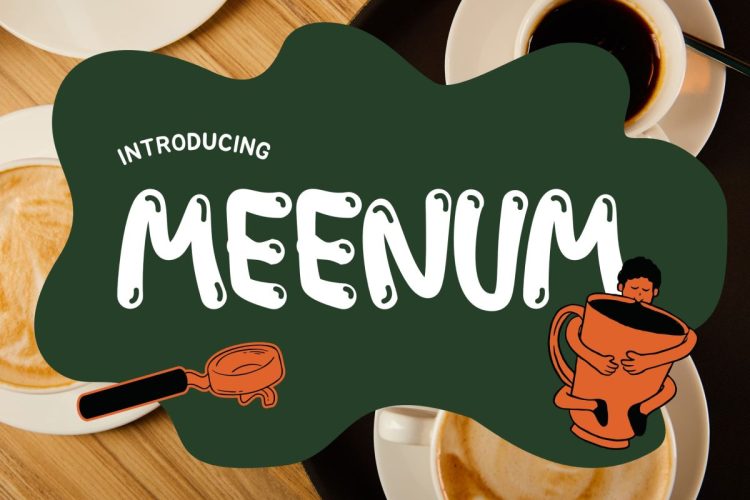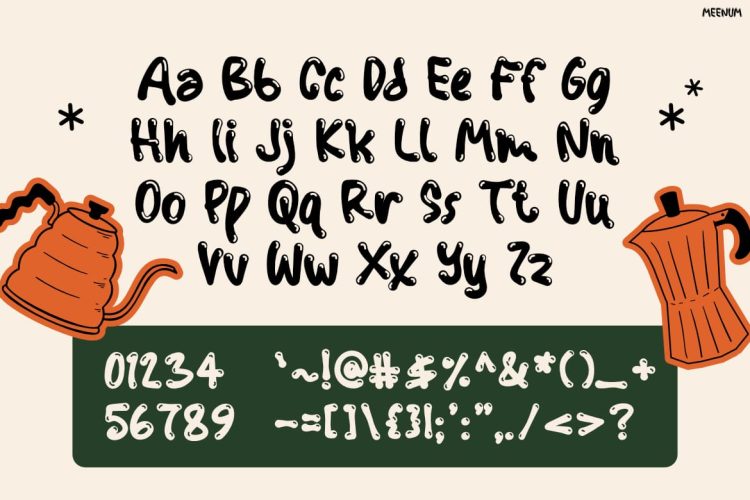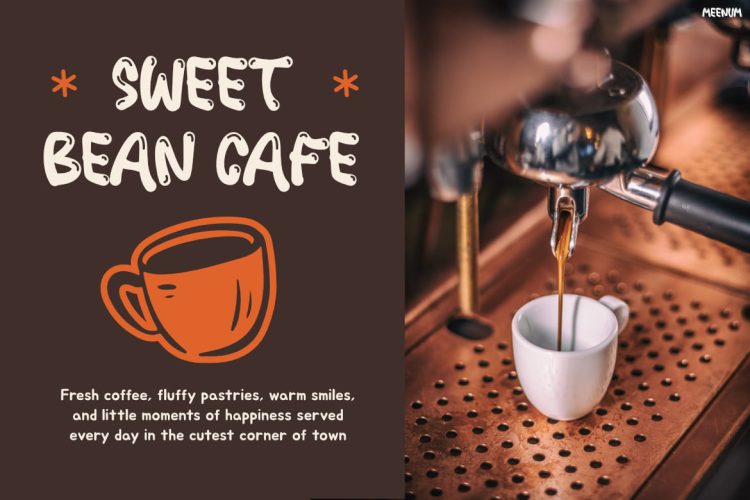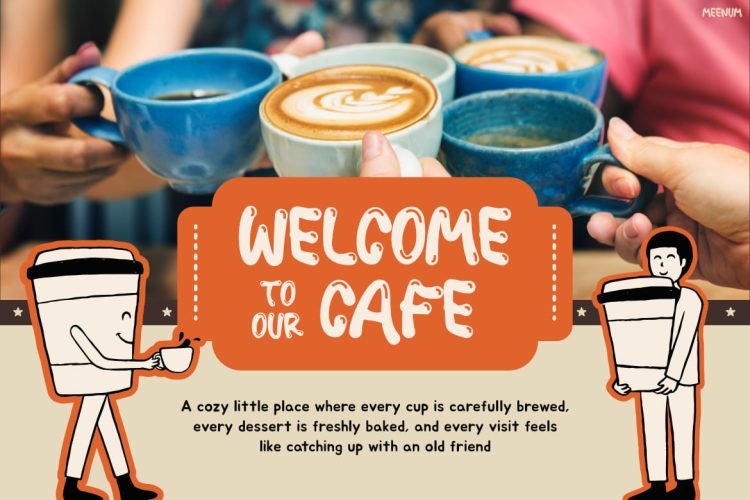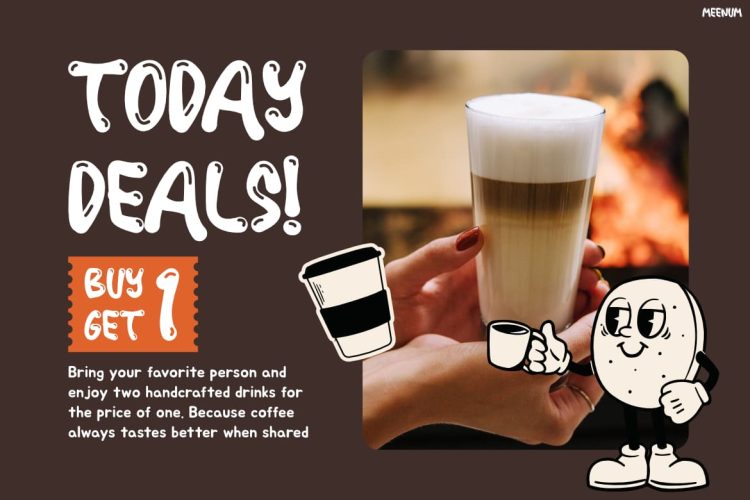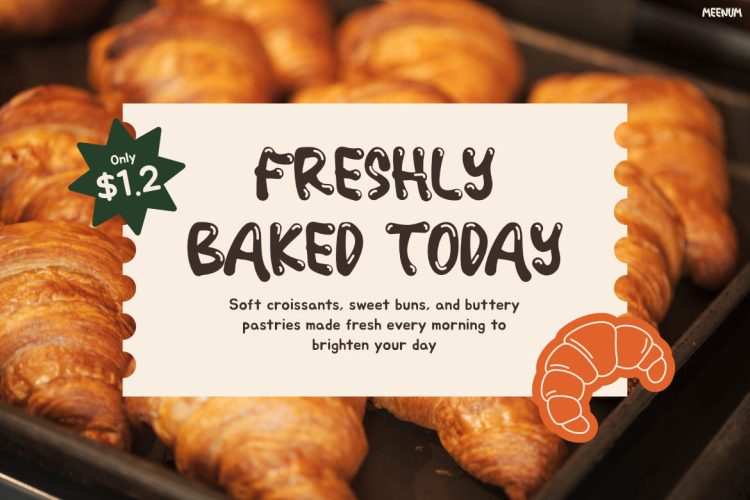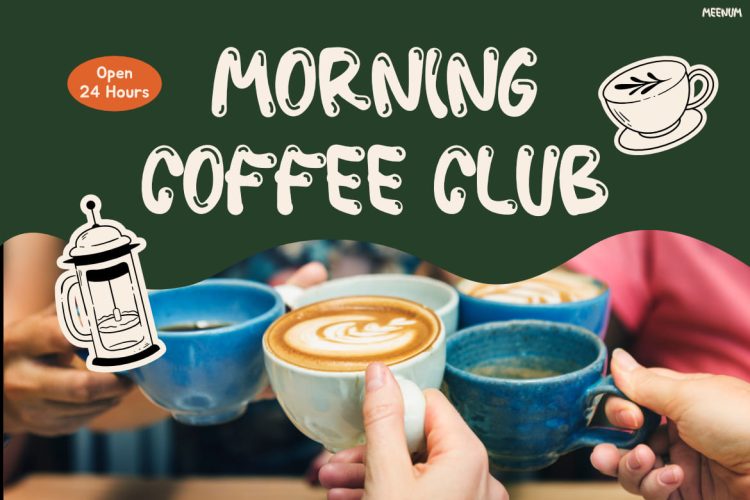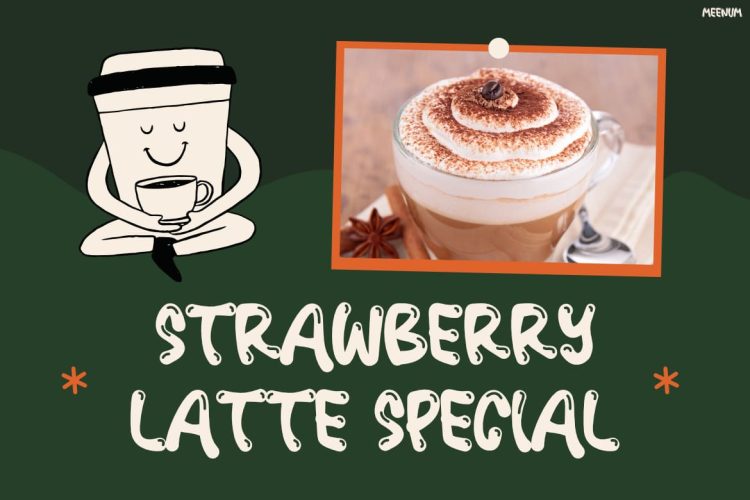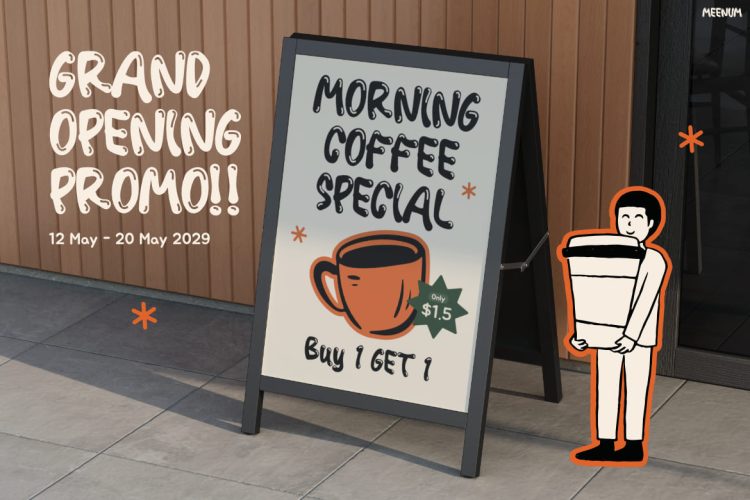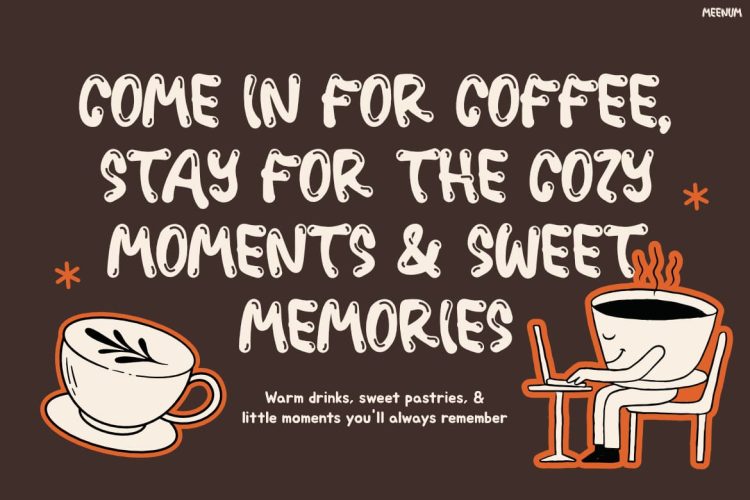
Kids Font Meenum is a cheerful handwritten display font that blends playful charm with a warm, handcrafted personality. From the very first glance, its rounded brush strokes create a friendly and welcoming atmosphere. Moreover, the casual letterforms add a fun handmade touch to every design. As a result, your headlines instantly become more inviting and memorable. At the same time, the clean structure keeps every word easy to read. Furthermore, Meenum delivers a cozy aesthetic that works beautifully across both digital and printed media. Therefore, it is an excellent choice for creative projects that need a cheerful and approachable look.
Why You’ll Love It
Kids Font Meenum is created for designers who love fun and expressive typography. Not only does it make every headline more eye-catching, but it also gives your branding a warm and personal feel. In addition, its playful style fits cafรฉ menus, bakery packaging, children’s products, greeting cards, stickers, posters, merchandise, and social media graphics. Likewise, the handcrafted details create an authentic and friendly personality. Meanwhile, the versatile design adapts easily to both print and digital projects. Most importantly, it helps every message feel joyful, creative, and easy to remember.
Kids Font Meenum Perfect For
- Coffee shops and cafรฉ branding
- Bakery menus and packaging
- Kids products and educational materials
- Greeting cards and invitations
- Stickers and merchandise
- Social media graphics and promotions
- Food packaging and product labels
- DIY crafts and creative branding
Bring More Joy to Every Design
If you want your designs to feel playful and welcoming, Kids Font Meenum is the perfect choice. Furthermore, its handcrafted style instantly adds warmth and personality. At the same time, its friendly letterforms improve readability without losing character. Consequently, your branding becomes more memorable and engaging. Finally, choose Meenum today and transform simple ideas into delightful designs that customers will love at first sight.